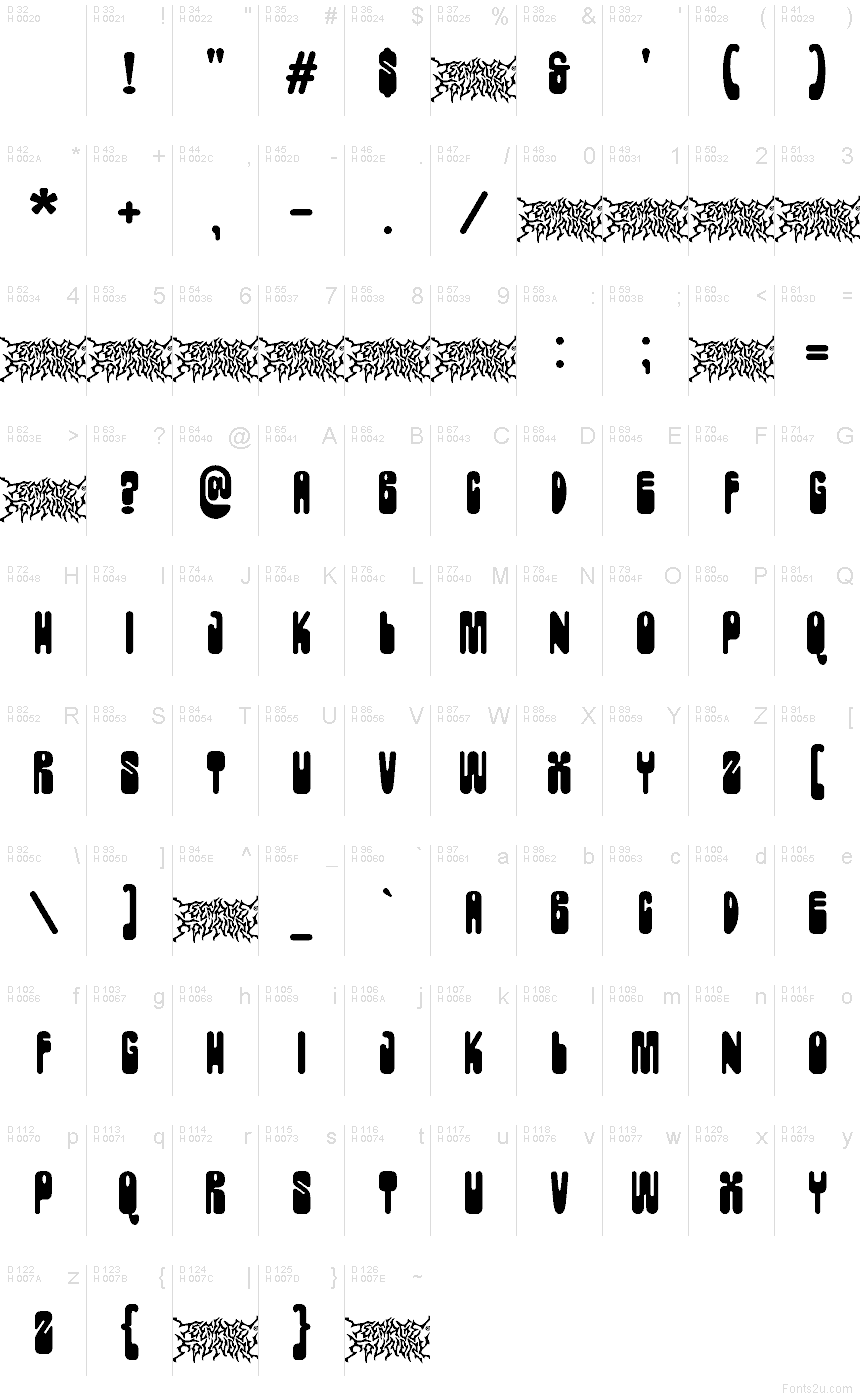
TFSpermo-Regular
TF Spermo font by Teenage Foundry is a condensed bold display font featuring a stylized, modern retro style with geometric influences and solid structure. Rounded elements combine with straight lines in a creative layout that ultimately delivers eye-catching texts.